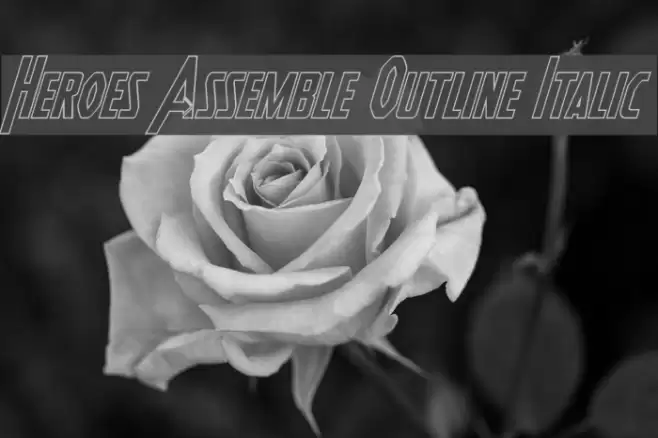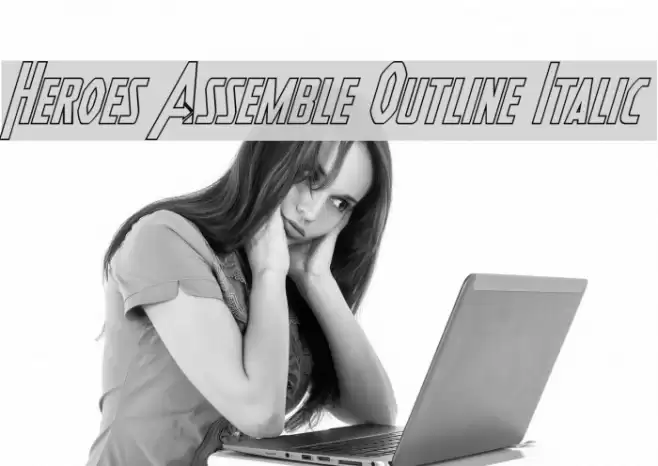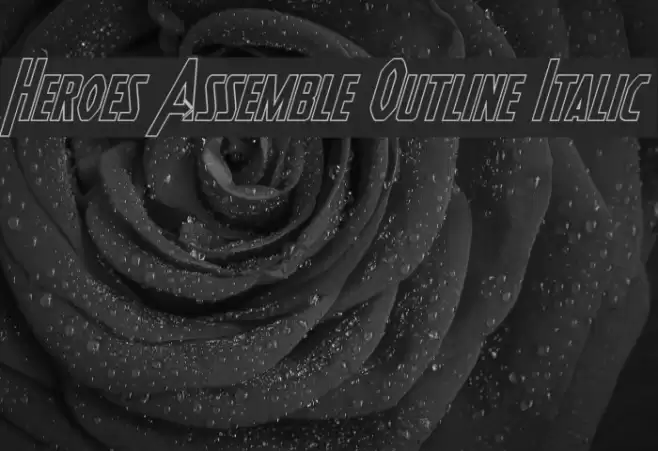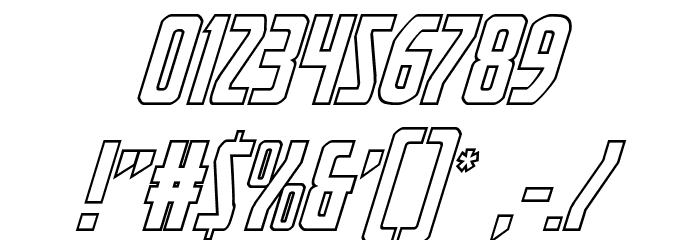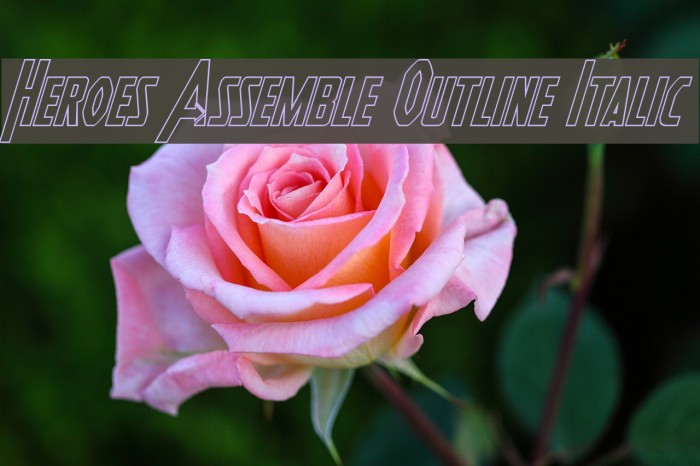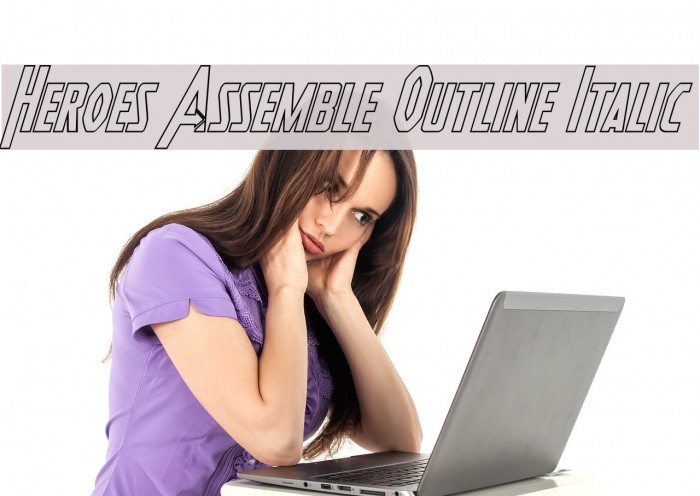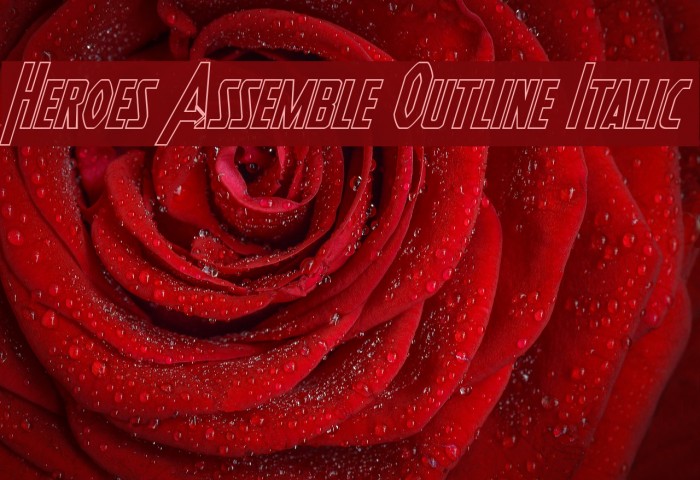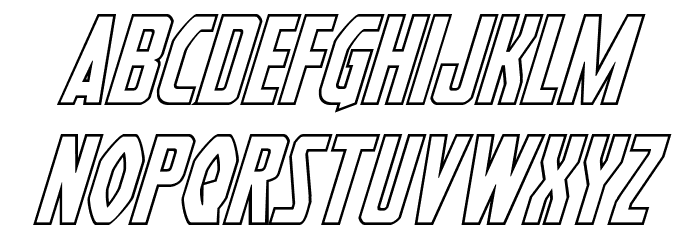
Heroes Assemble Outline Italic
This font features a bold, dynamic outline style with a strong italic slant, giving it a sense of movement and energy. The uppercase letters are prominent and angular, creating a striking visual impact. The numbers and special characters maintain the same bold outline, ensuring consistency across all glyphs. The design is reminiscent of comic book or superhero themes, making it ideal for projects that require a sense of action and excitement. The spacing between characters is tight, which enhances the cohesive look of the text. This font is perfect for titles, posters, and any design that aims to capture attention with a bold statement.
A bold, italic outline font with a dynamic, superhero-inspired style.
- Proposed Projects: Ideal for comic book titles, superhero-themed posters, action movie graphics, and eye-catching headlines.
- Character Spacing: Tight
- Use Case: Headlines, Logos, Posters